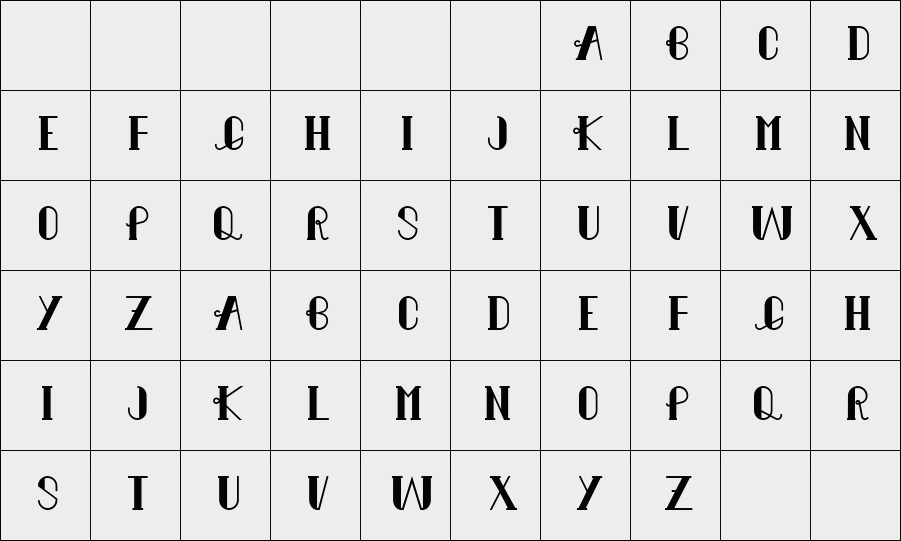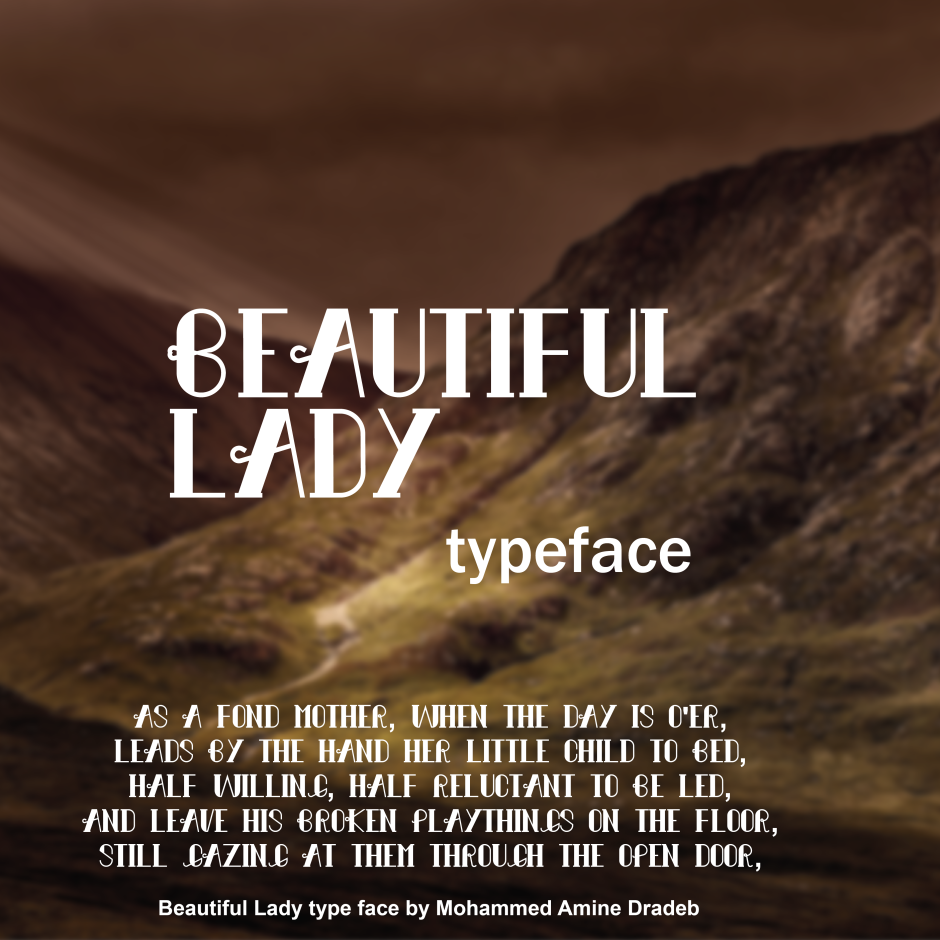
Beautiful lady
Beautiful Lady
Beautiful lady
/ Beautiful Lady
Beautiful Lady
serif fonts simple and classic looking yet beautiful as our beautiful lady